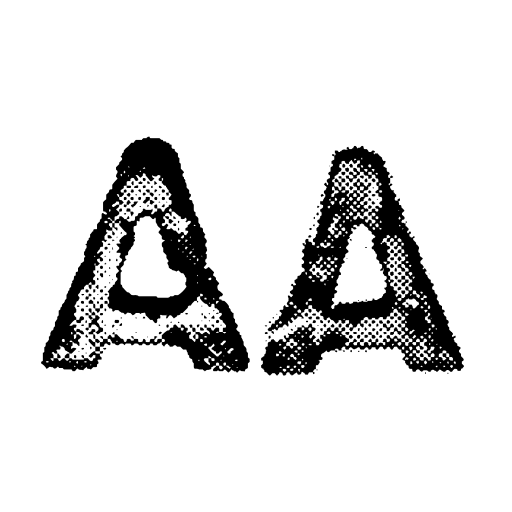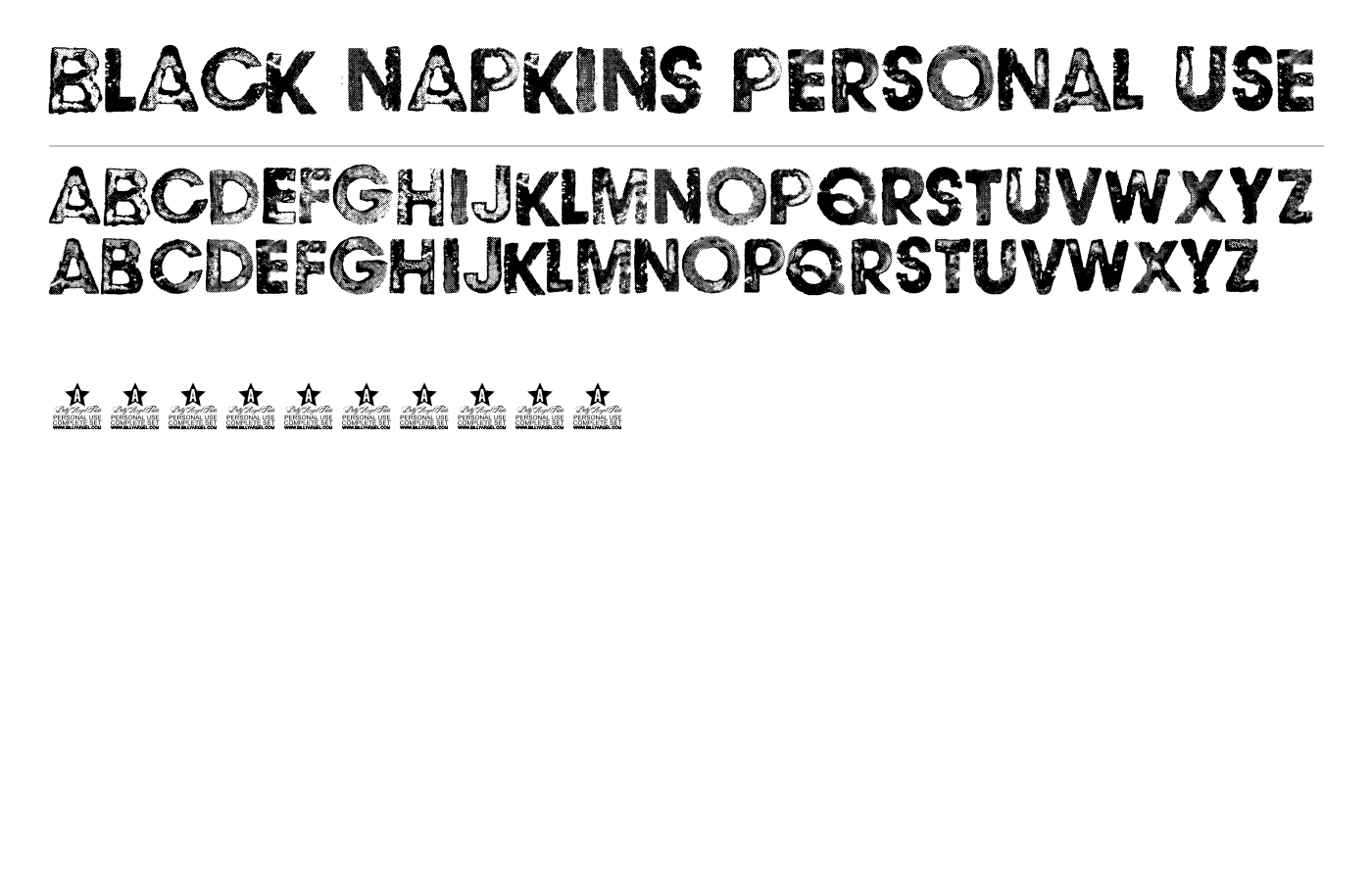
BLACK NAPKINS Personal Use Font is a bold, textured sans serif that exudes a raw, distressed charm. Its heavy weight and irregular, rough edges create a gritty, hand-stamped effect perfect for adding a vintage or urban feel. This font works well in edgy branding, posters, and display uses where a strong, rebellious personality is desired.
BLACK NAPKINS Personal Use Font
About BLACK NAPKINS Personal Use Font
| Font family | BLACK NAPKINS Personal Use Font |